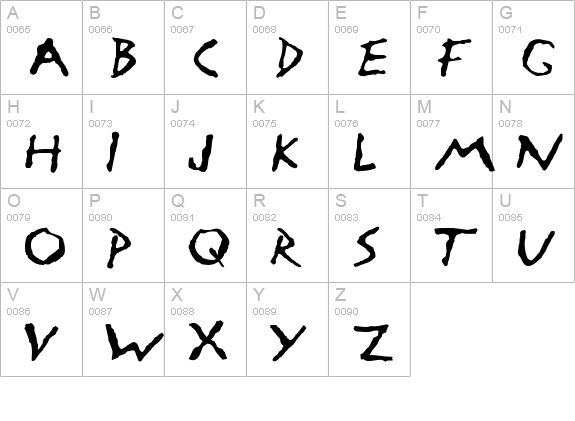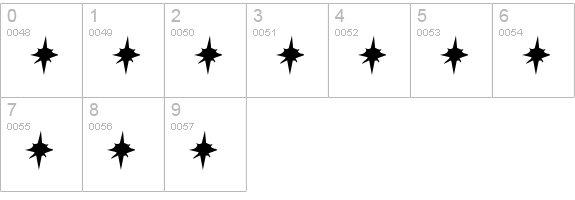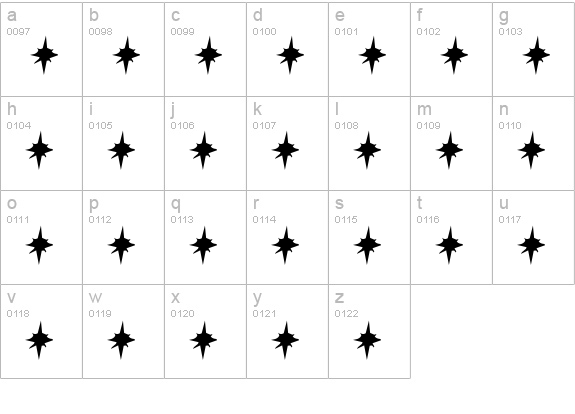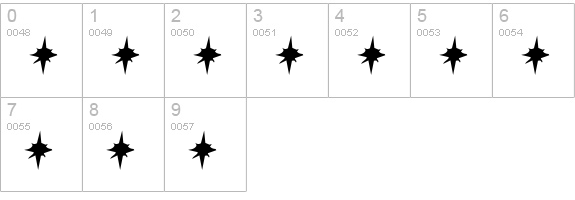
Armageddon Font Details
The Armageddon font is a bold and powerful typeface that exudes a sense of strength and intensity. With its sharp edges and unique design, this font is perfect for making a statement in your designs. Whether you're creating posters, logos, or other graphic projects, Armageddon will surely catch the eye of your audience. What's even better is that the Armageddon font is available for free download at FontsMarket.com. This means you can easily add this striking font to your collection without any cost. Don't miss out on the opportunity to enhance your designs with the impactful Armageddon font today!